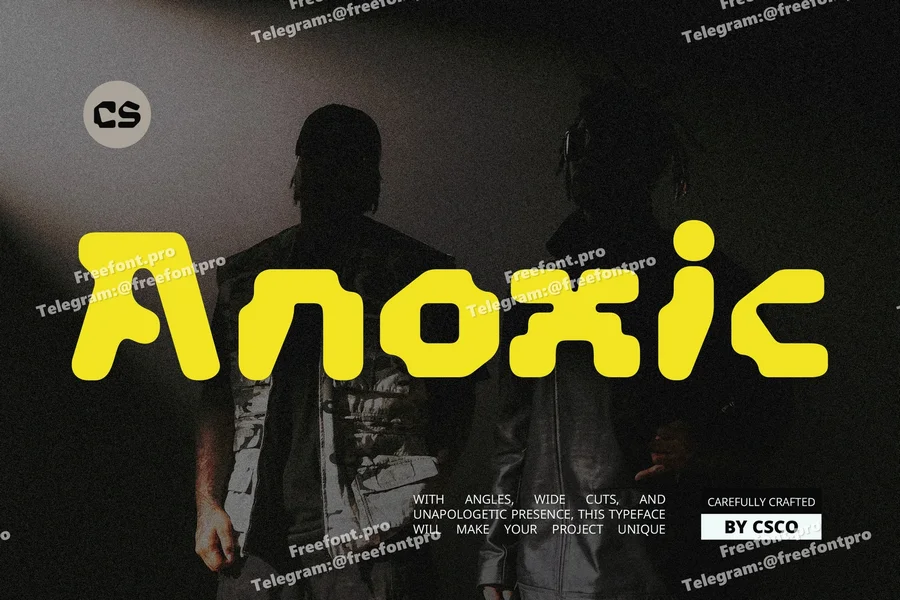
Anoxic – Bold Font
CS Anoxic – A Bold Experimental Display Font
Daring Shapes, Unforgettable Presence CS Anoxic is a bold display font designed for those who want to break conventions. With its unconventional letterforms and experimental structure, this typeface brings a sense of boldness, creativity, and controlled chaos to any visual composition. The characters are intentionally surprising—pushing the boundaries of legibility to create a striking, avant-garde aesthetic.
Made for Disruption and Impact Every form in CS Anoxic feels purposeful yet unpredictable, ideal for designers seeking to create a visual impact that is loud, daring, and different. Whether you’re working on album covers, experimental posters, edgy branding, or high-fashion visuals, this font is built to grab attention and leave a mark.
Contemporary and Concept-Driven Rooted in modern design principles but unafraid to distort them, CS Anoxic represents a fusion of futurism and raw creative energy. The bold strokes and abstract letter construction lend themselves to both digital and print environments, while still feeling niche and exclusive—perfect for brands that want to speak a language of innovation, rebellion, and individuality.
Ideal for Expressive Design Projects From art installations and creative campaigns to futuristic visual identities, CS Anoxic is your go-to font for delivering an unforgettable and experimental impression. It’s not about being safe—it’s about being seen.